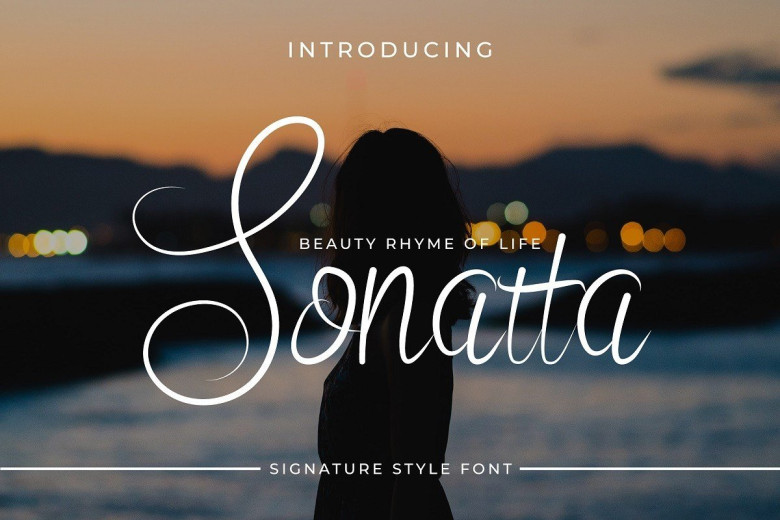
Sonatta Calligraphy Script Font
Sonatta Font is elegant calligraphy script typeface, designed to convey elegance and style. It is slender, feminine and friendly, This font is casual and pretty with swashes. Can used for various purposes.